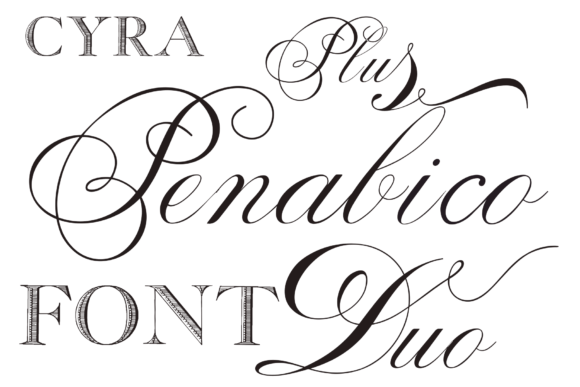
Introducing Penabico Cyra Duo Font, the Best Font For Speech Script! Created by Intellecta Design, this font duo is perfect for anyone looking to elevate their design projects with a touch of elegance and sophistication.
With Penabico Script and Cyra, you get the best of both worlds. The classic script font adds a stylish and personalized touch to your designs, while the engraved Roman classic typeface brings a sense of timeless beauty. Together, they create a visually captivating display look that seamlessly combines classic style with modern functionality.
Whether you're designing a logo, invitation, label, magazine, book, greeting card, packaging, or even a fashion or makeup project, Penabico Cyra Duo is the ultimate choice. Its versatility allows it to be applied to various formal forms, adding a touch of class to any design.
Inspired by the copperplate script styles found in the "Universal Penman, London, 1741," Penabico is truly a masterpiece. Its exquisite details and carefully crafted curves make it a standout choice for anyone seeking a font that exudes elegance and sophistication.